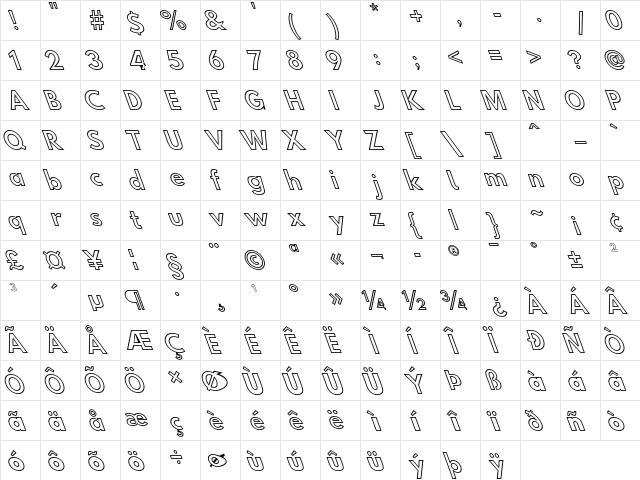
Hussar Simple ConGhoOpObl3
Design Context for Hussar Simple Typeface
Hussar Simple is a composed and adaptable typeface that performs quietly and consistently across a wide range of design contexts.